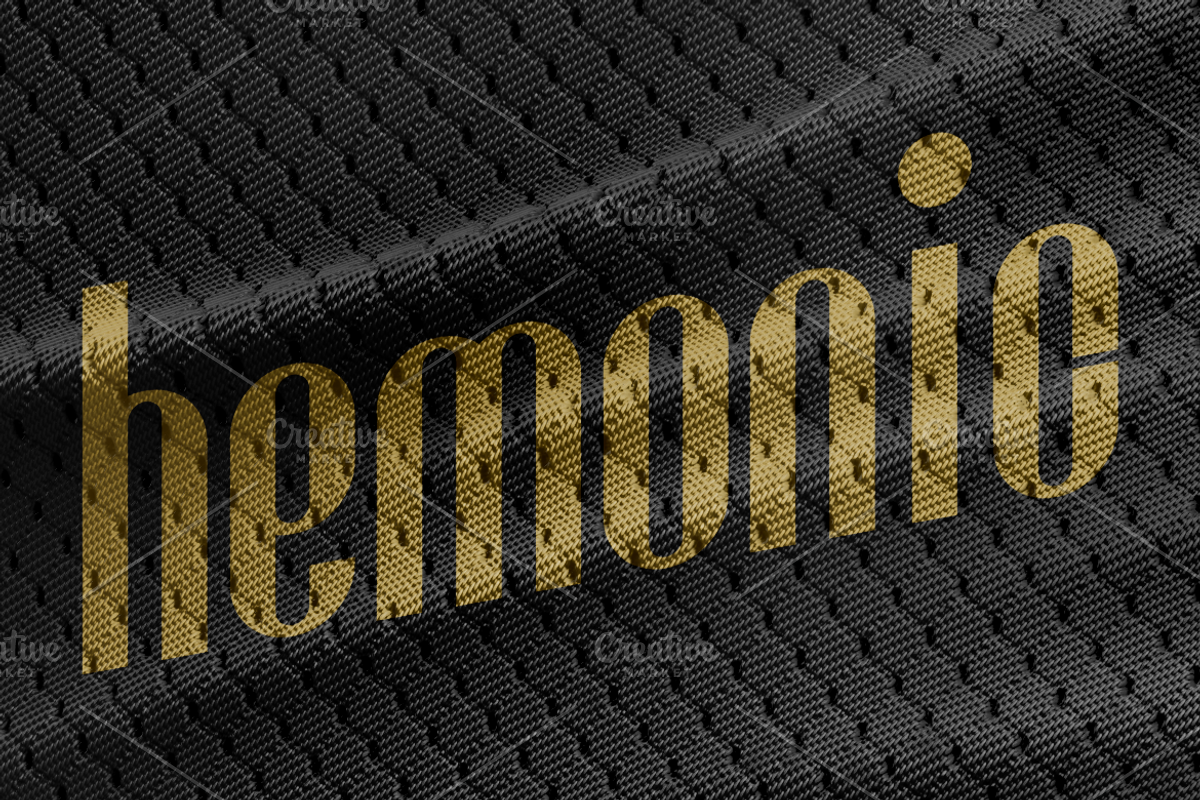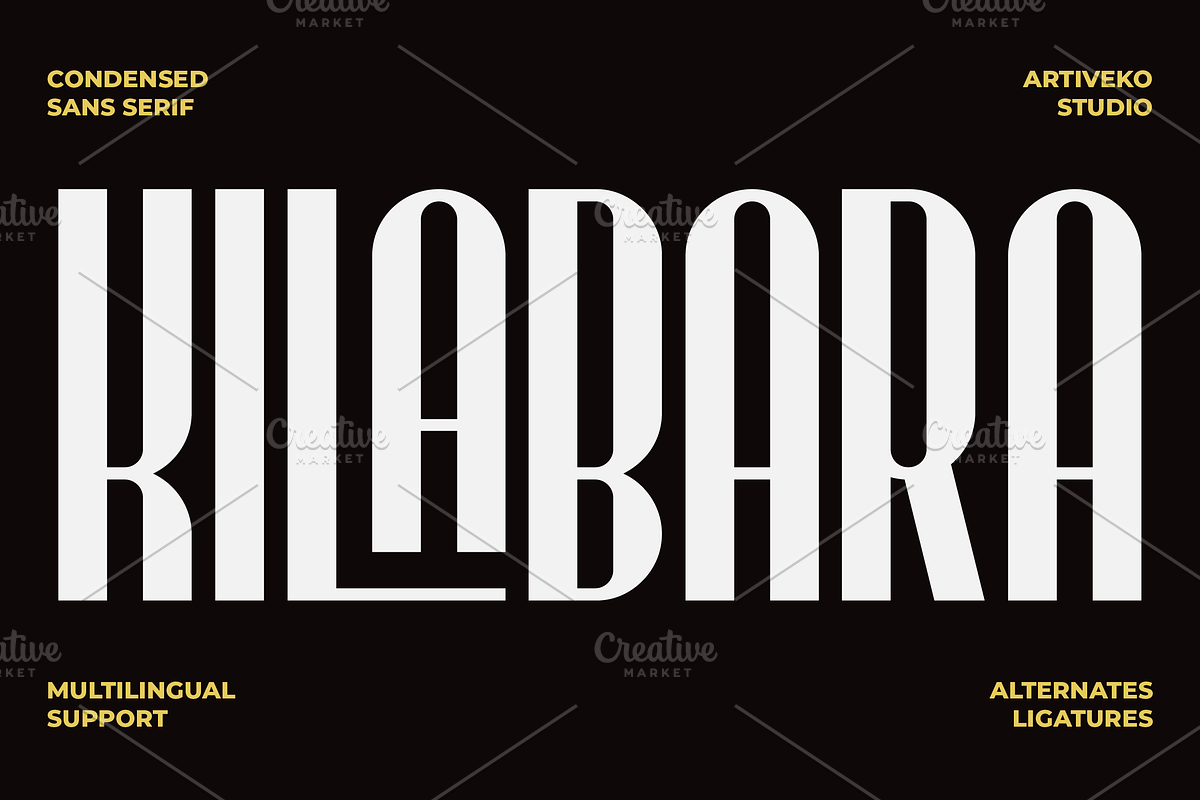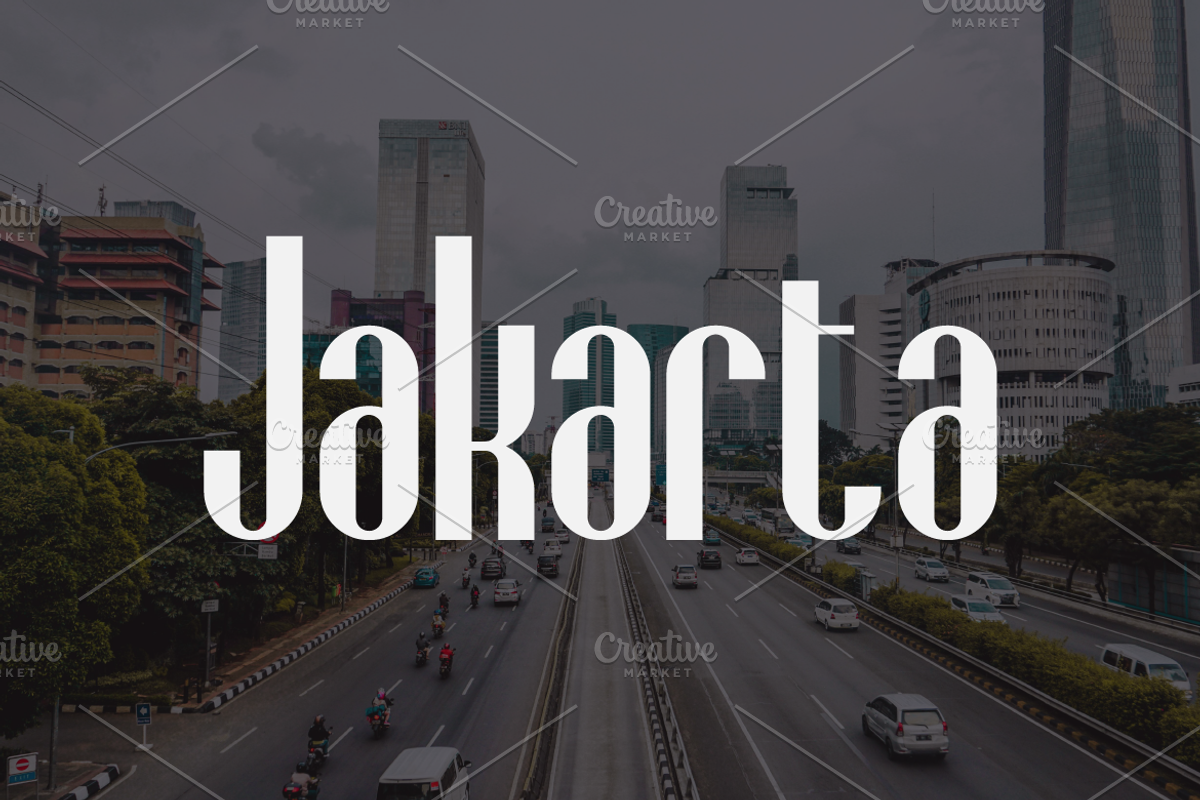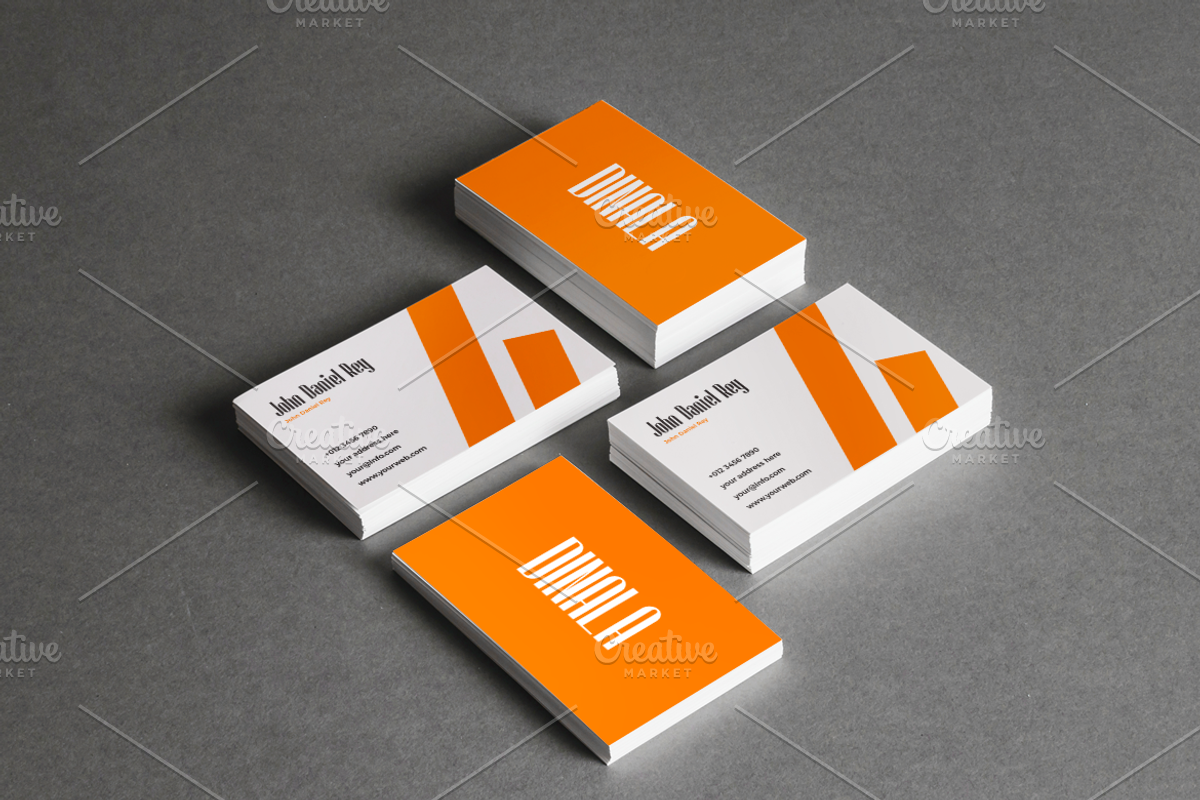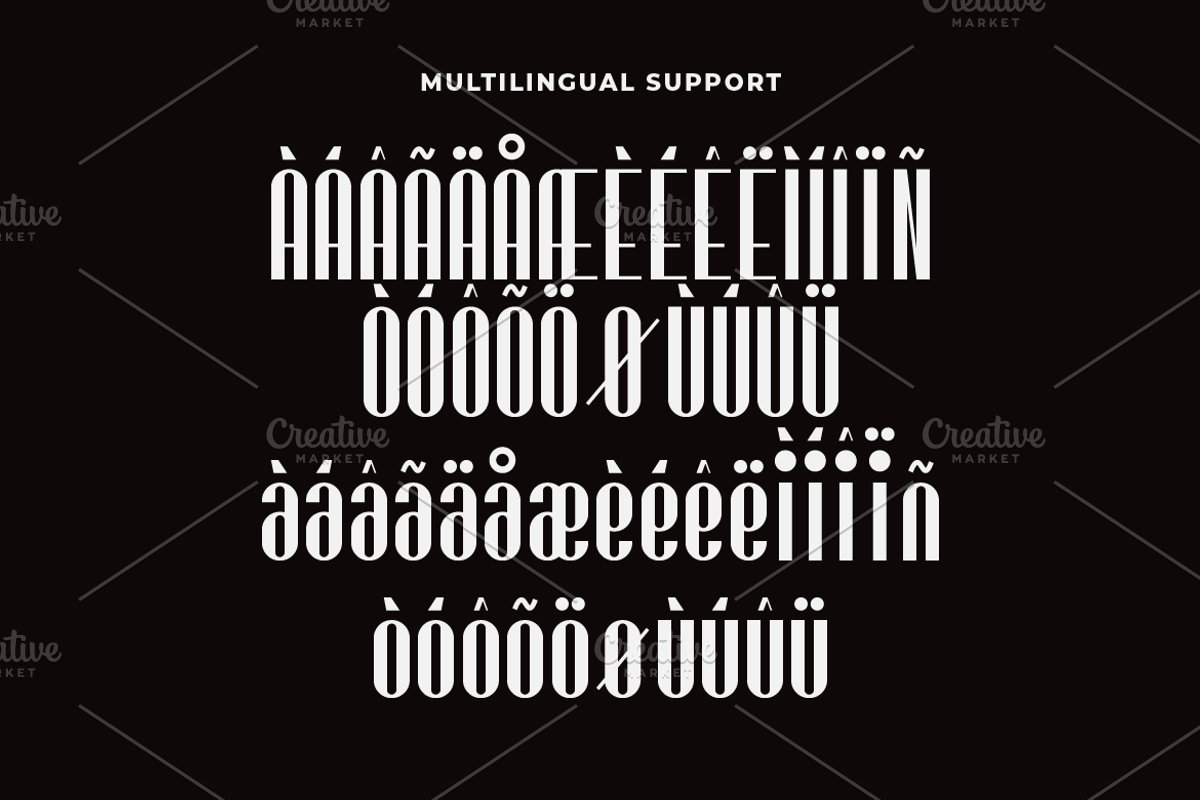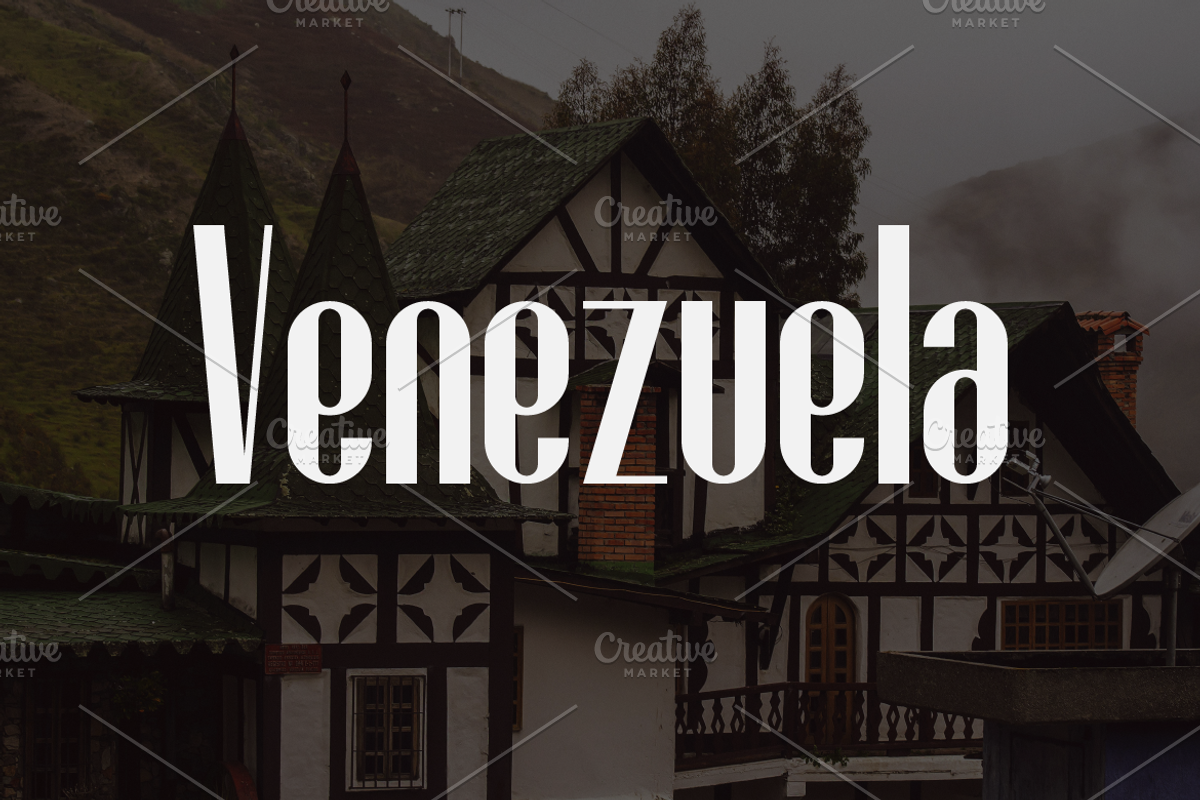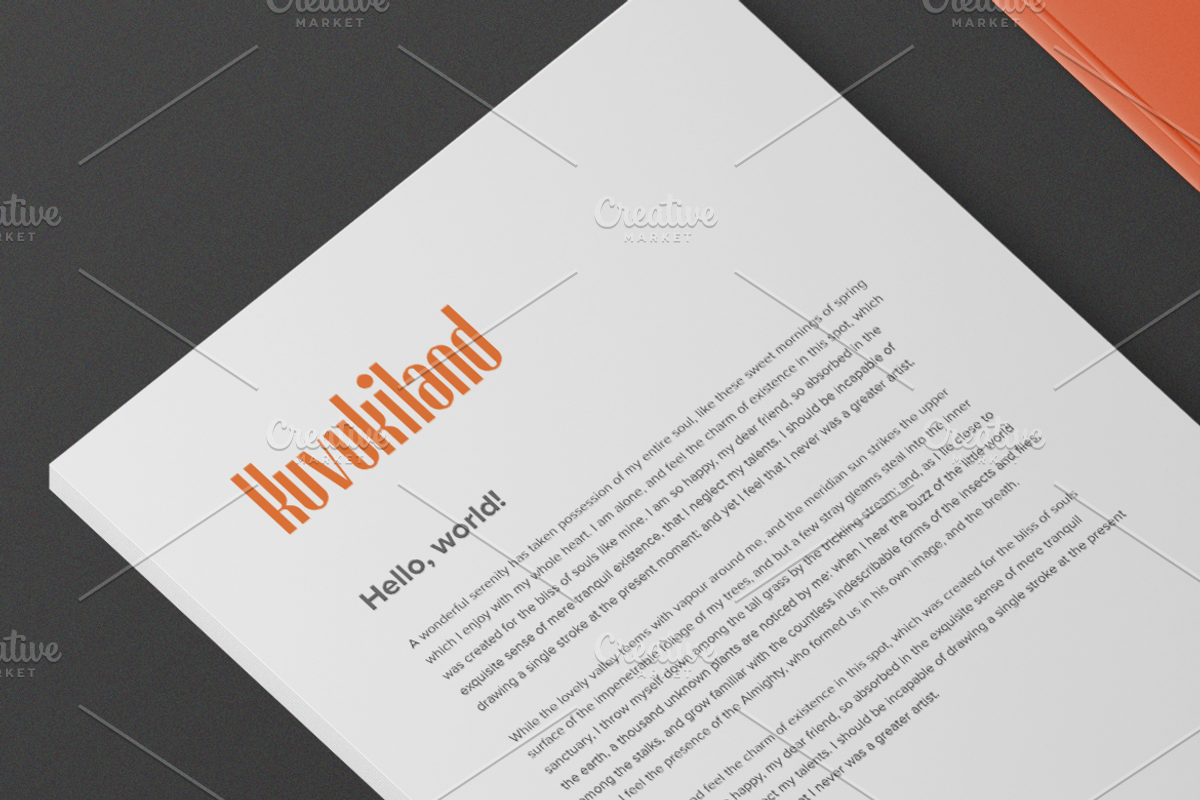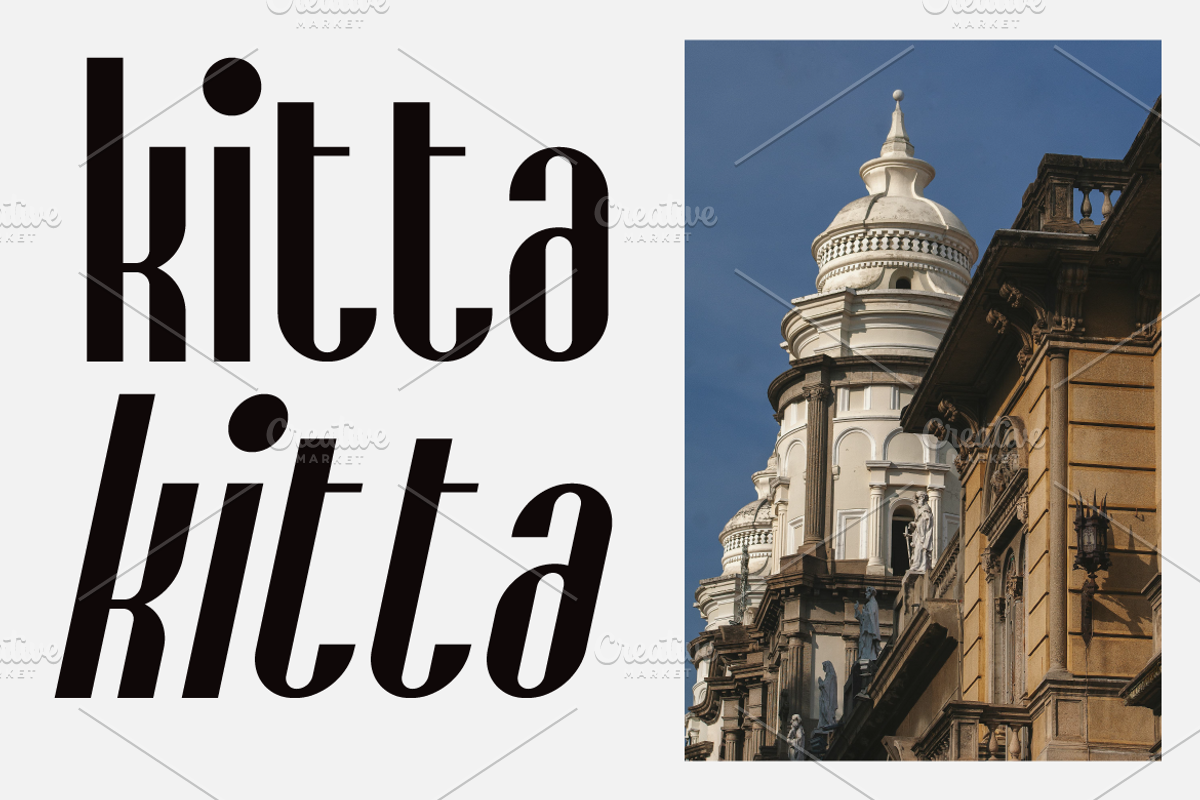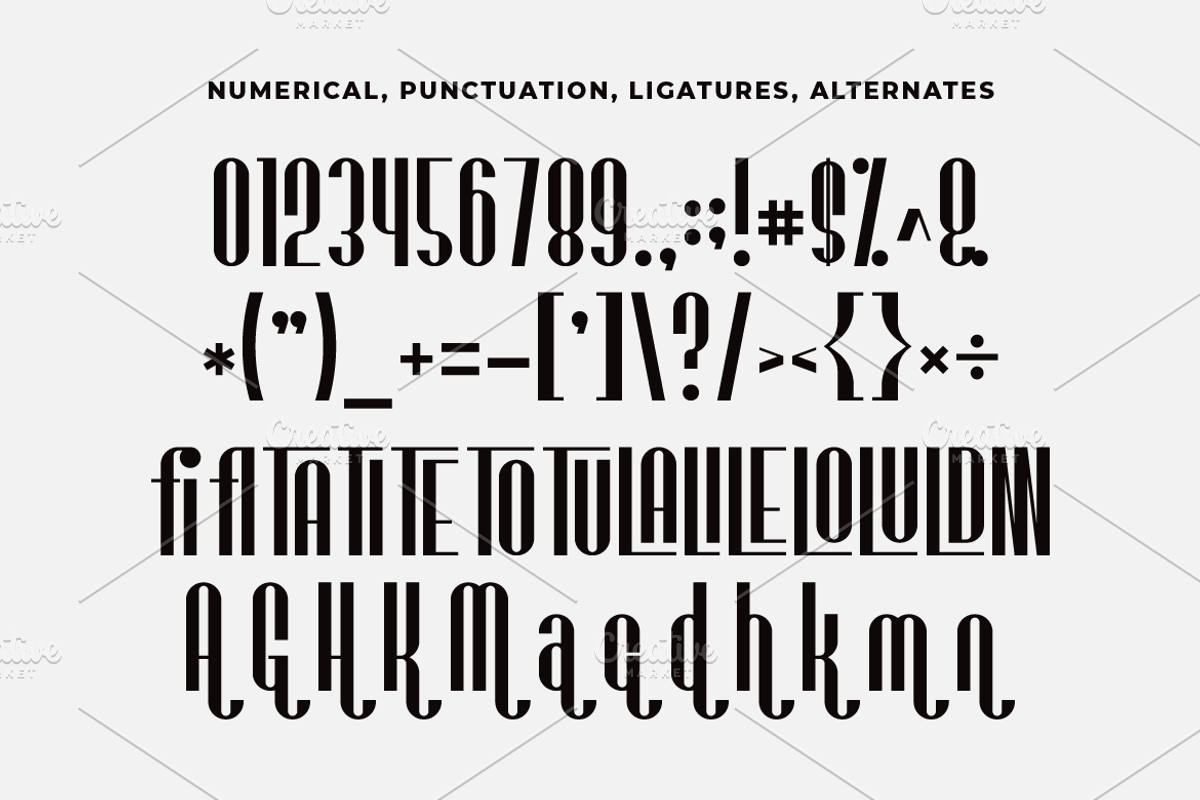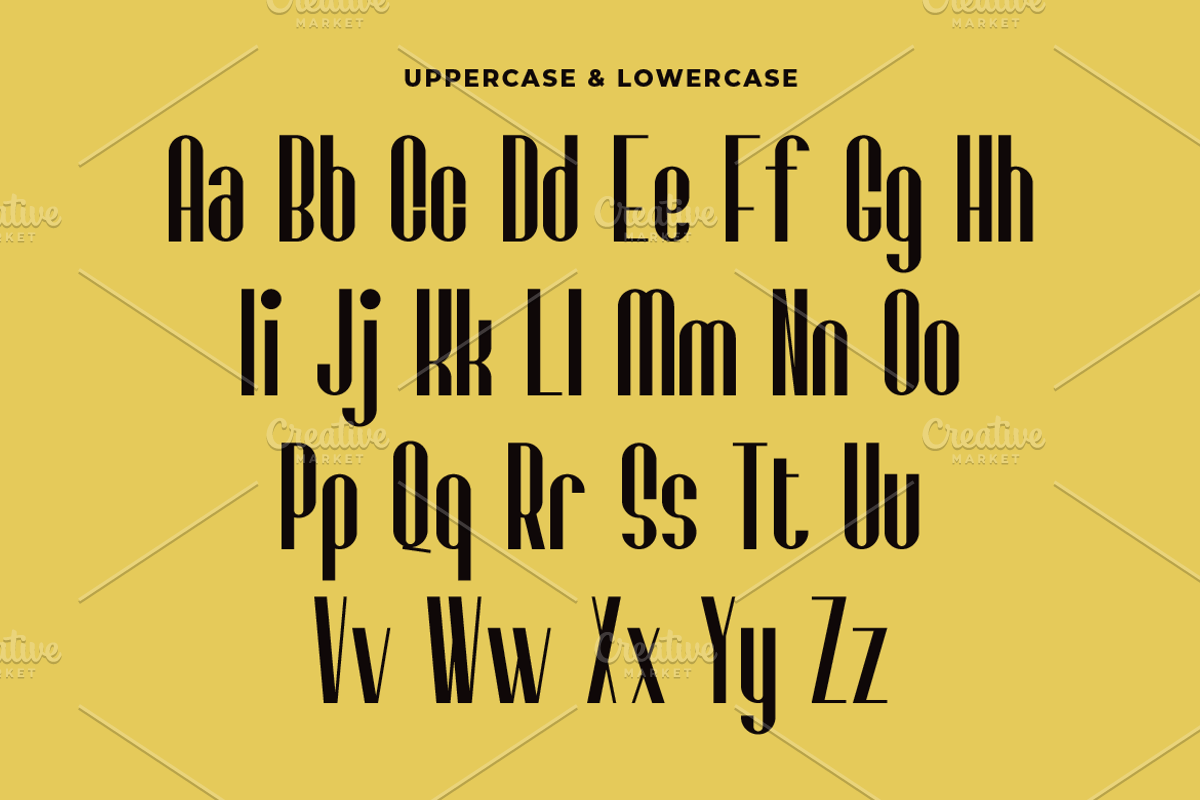
Kilabara Condensed Sans Serif
Kilabara is a distinctive display logo font with unique shapes and variations in uppercase and lowercase characters. It supports multiple languages and features alternates and ligatures, making it versatile for diverse design needs. Crafted by Iwan Alwan, Kilabara stands out with its creative flair and adaptability, perfect for eye-catching logos and branding projects.